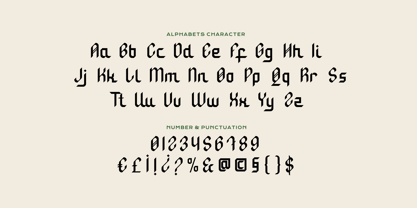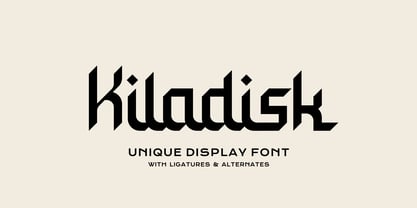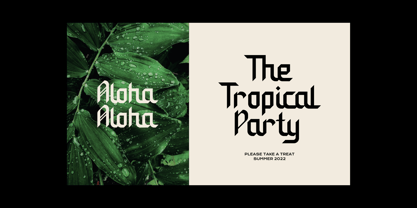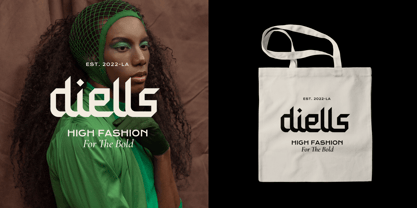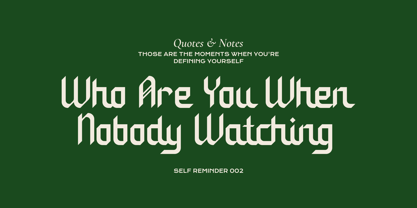
Kiladisk
by Imoodev
The Kiladisk Font Family was designed by Aulia Savira Putri and published by Imoodev. Kiladisk contains 1 styles.
Kiladisk is a powerfully unique display font where the ancient art of Kufic calligraphy meets the sharp edge of modern typography. Designed to make an unforgettable impact, Kiladisk masterfully fuses the geometric precision of Kufic script with the bold forms of blackletter, creating a voice that is both timeless and daringly new. Drawing its soul from the principles of Kufic calligraphy, the letterforms in Kiladisk are a study in beautiful contrasts. Each character features assertive, blade-like terminals and strong angular lines that command attention. These are seamlessly connected by sweeping ligatures and extended baselines, creating the rhythmic, cohesive flow that is central to both the font and its calligraphic heritage. This gives your text a truly custom lettered feel, ensuring it stands out with elegance and power. Kiladisk isn't just a font, it's a statement. It’s a bridge between heritage and modernity, designed for the bold, the creative, and the unforgettable.
Designers: Aulia Savira Putri
Publisher: Imoodev
Foundry: Imoodev
Design Owner: Imoodev